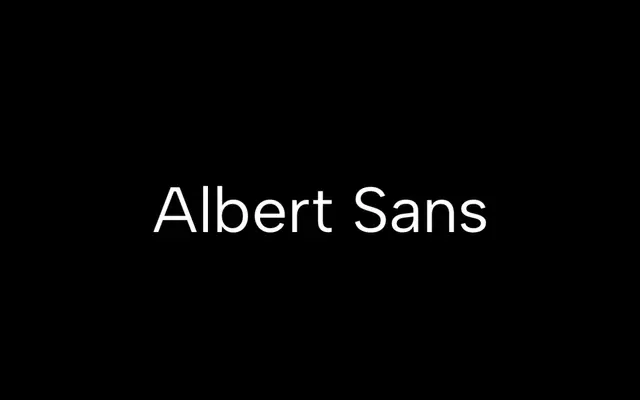
af Albert Sans
af Albert Sans specimen from a.Foundry
A free geometric sans serif in nine weights and two widths, drawing on Scandinavian architectural lettering traditions of the early 20th century.
Released in 2022 under the SIL Open Font License, it spans 18 styles plus a variable font, covering Normal and Narrow widths each with nine weights from Thin to Black and matching italics. The design cites the type characteristics of Scandinavian architects and designers as its primary reference, giving it a restrained Nordic quality. Available via both the foundry and Google Fonts, it supports 187 languages across an extensive Latin Extended character set.
Described explicitly as a modern geometric sans serif, with clean proportions and Scandinavian architectural influences from the early 20th century informing its character shapes.